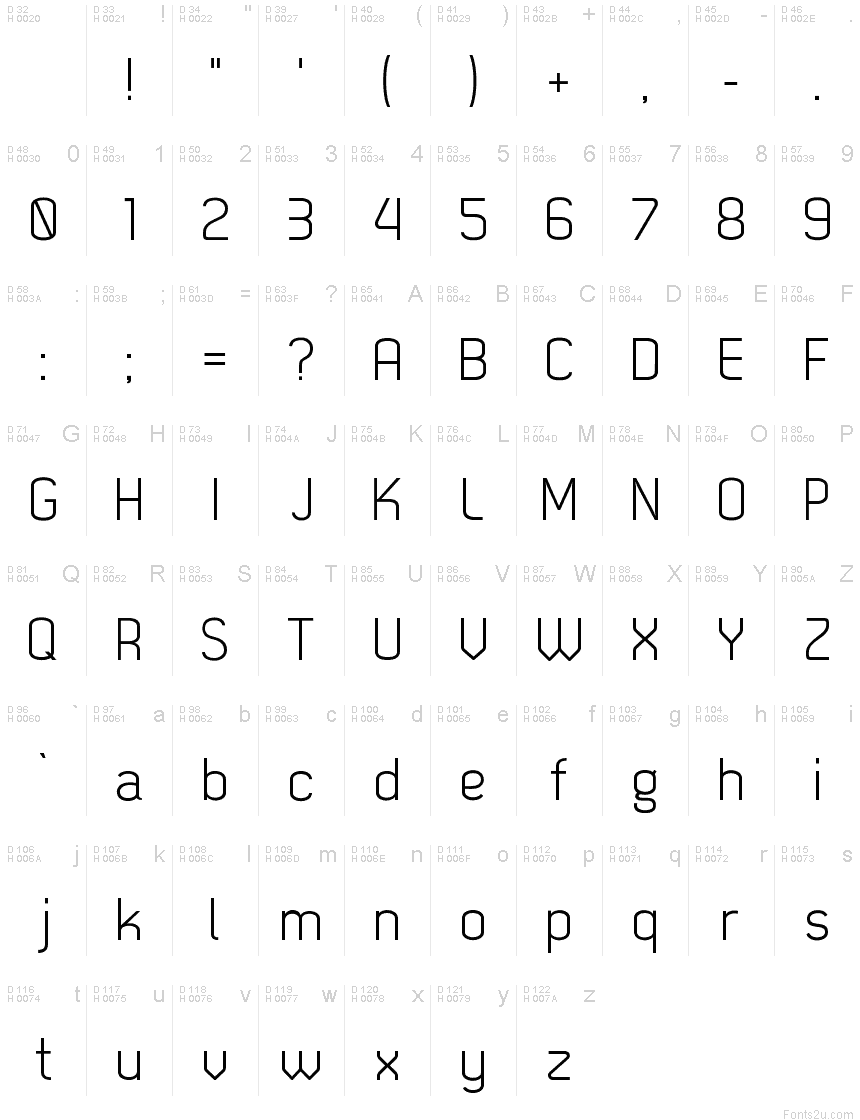
Dekar, designed by Svetoslav Simov of Fontfabric, is a free geometric sans serif with slim strokes and an airy, understated appearance. Its letters combine broad curves with straight, economical lines, and subtle changes in width give them a lightly drawn quality. Tall proportions and open interiors keep the design crisp rather than severe.
Fashion, beauty, and lifestyle designers will find it suited to restrained branding, magazine covers, and elegant packaging, where its fine construction suggests care and refinement. The recurring mix of circular shapes and clean verticals matches architectural photography and product imagery because all share a clear geometry.
Modern and elegant sans serif free font.